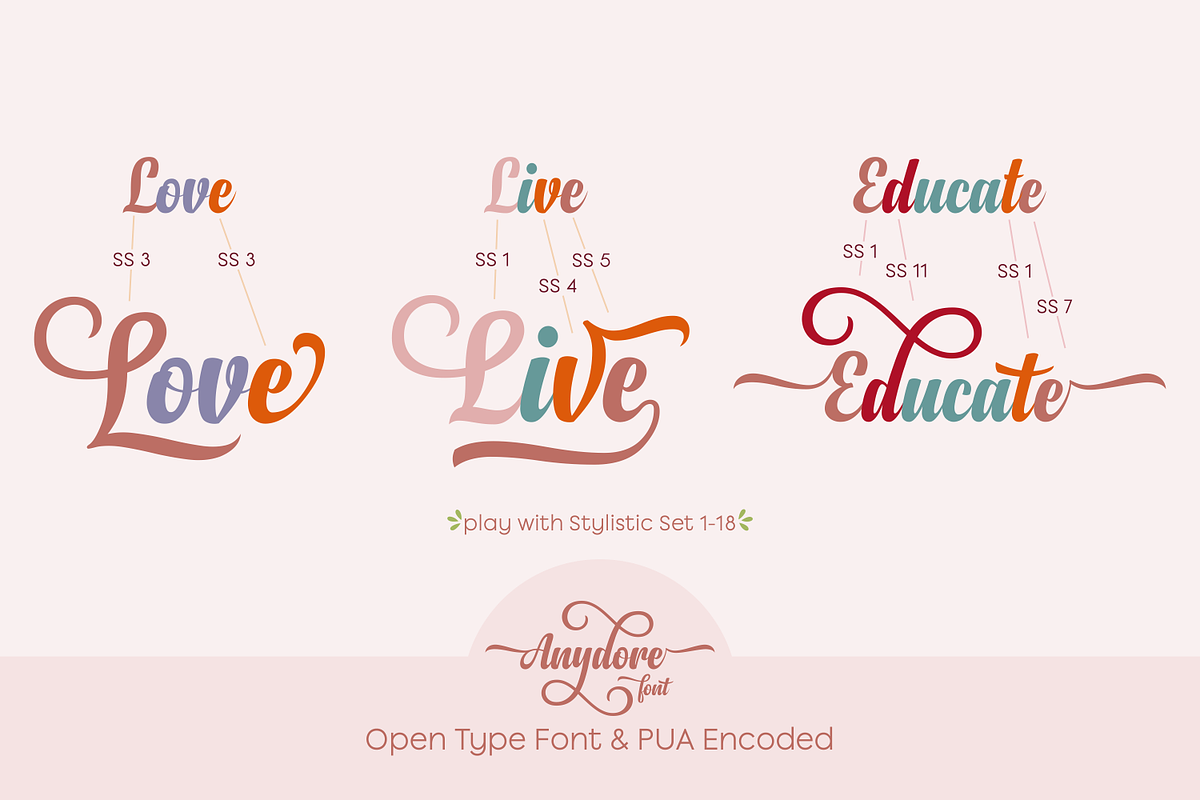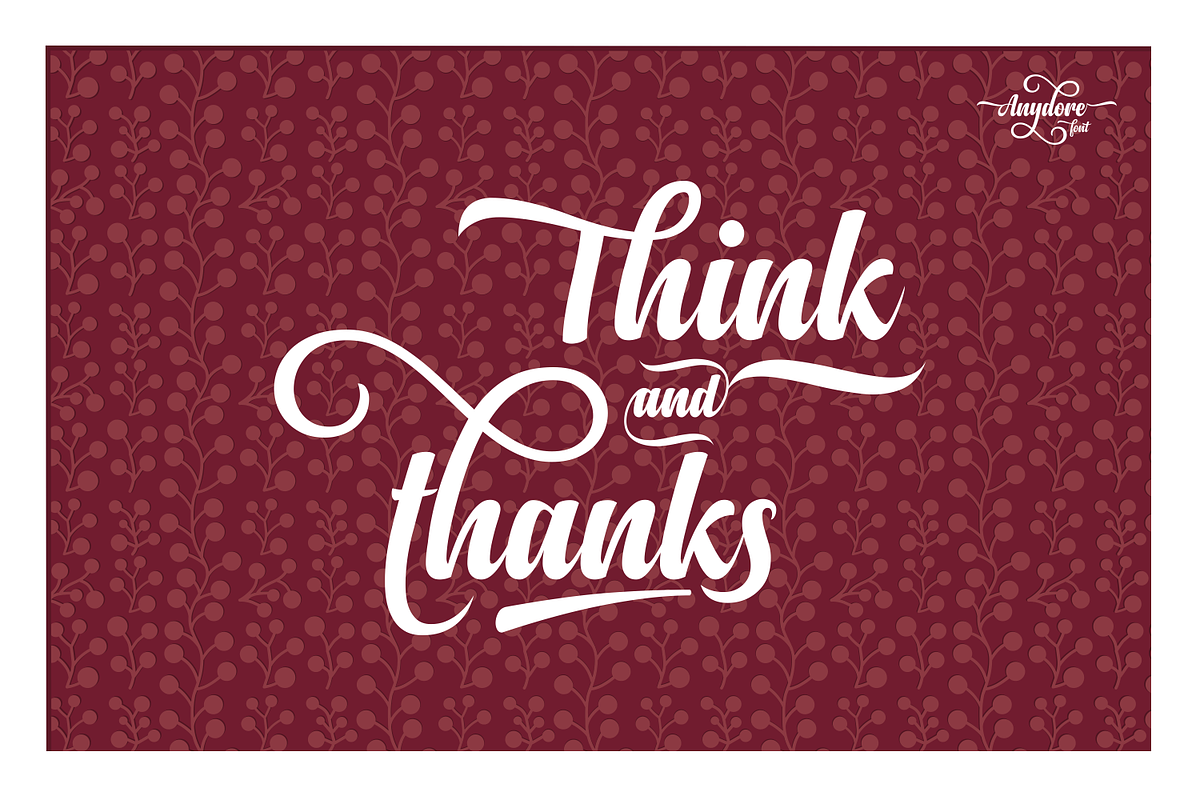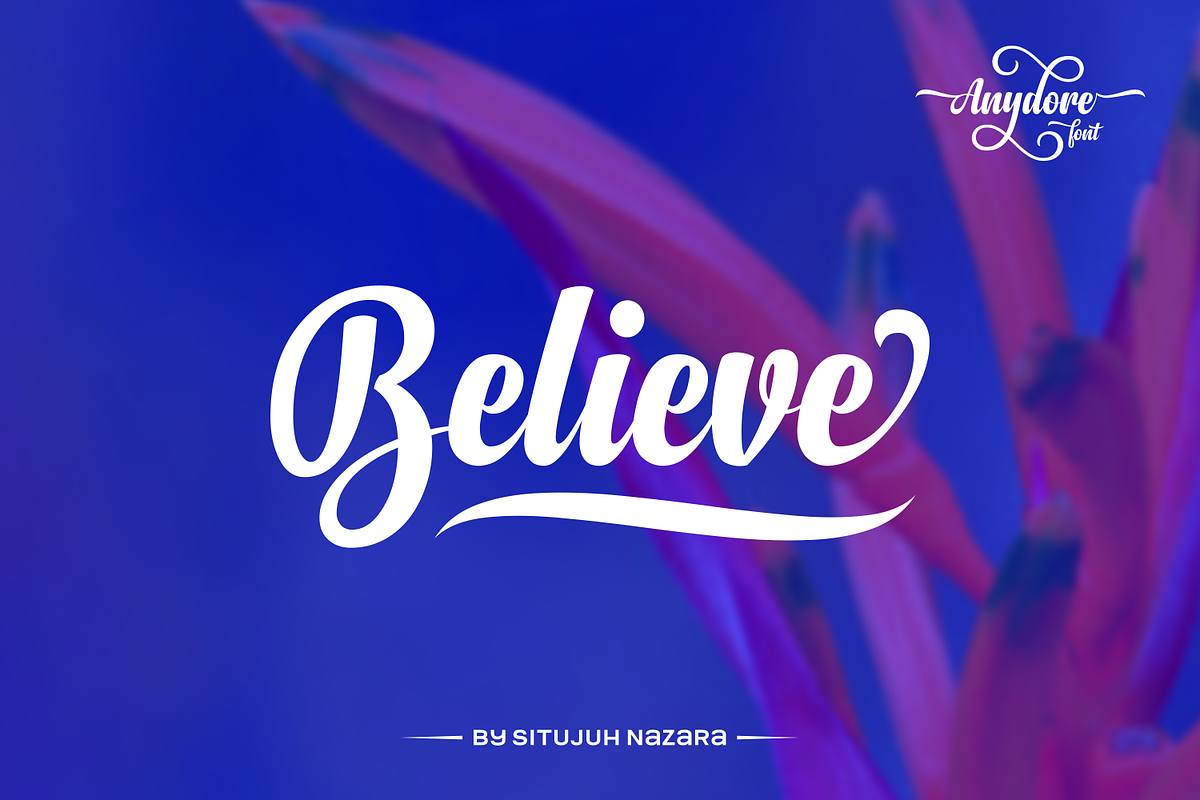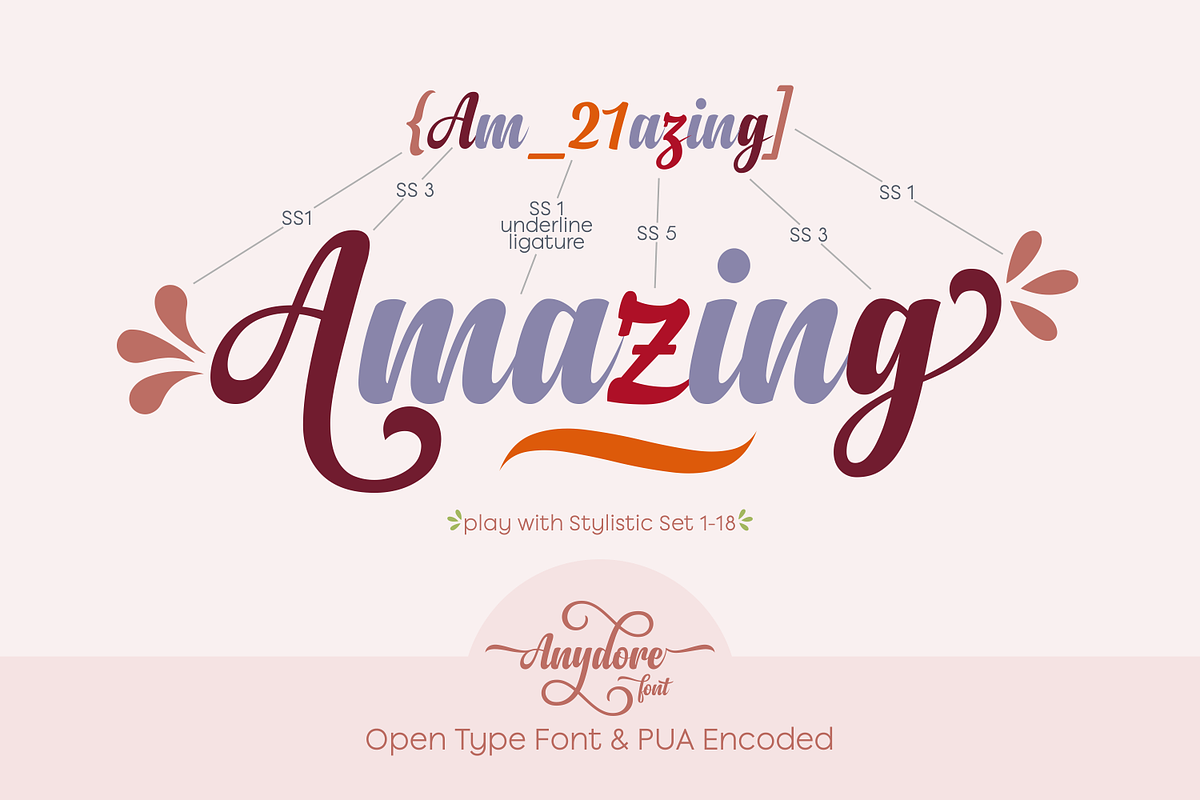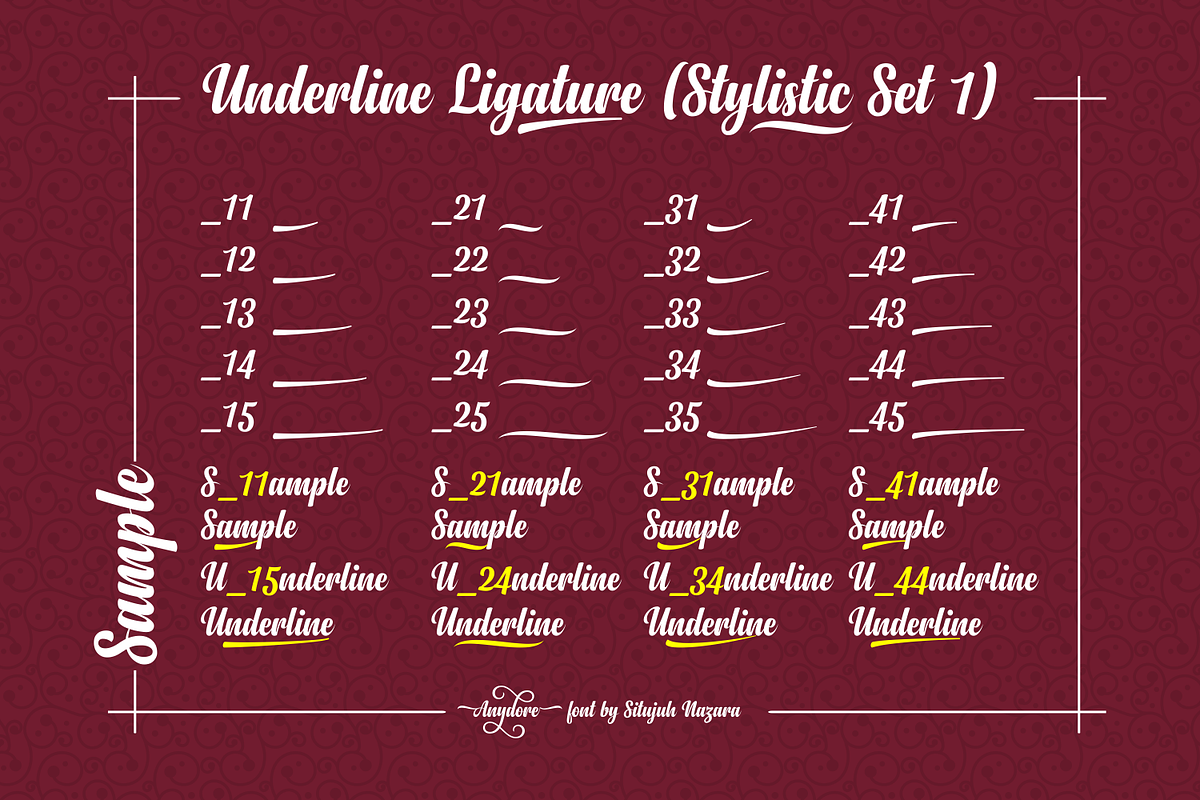
Anydore
The Anydore font is an elegant and strong handwritten script, Open Type and PUA Encoded. It comes packed with lots of alternate characters (Stylistic Set 1-18) that allow you to come up with unique designs each time you use it.